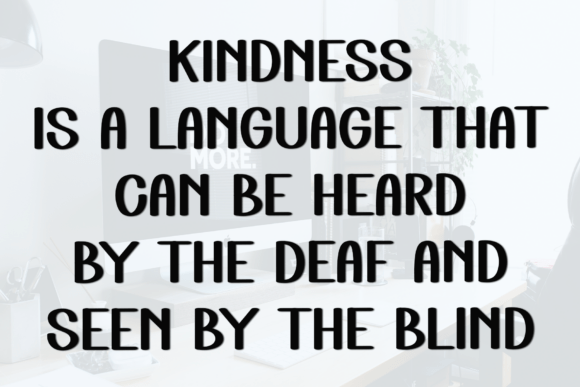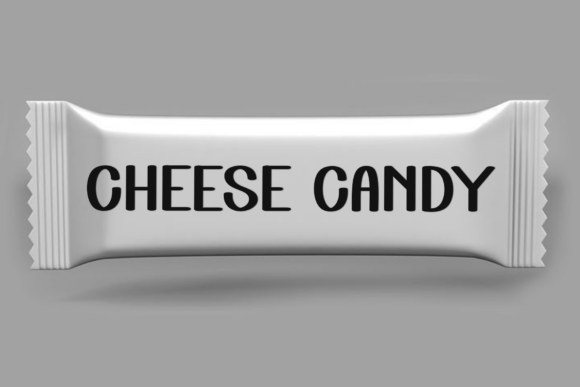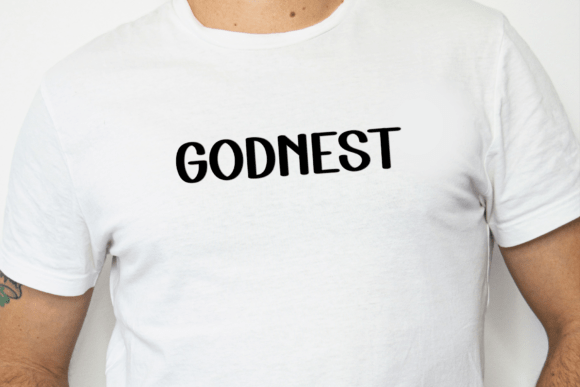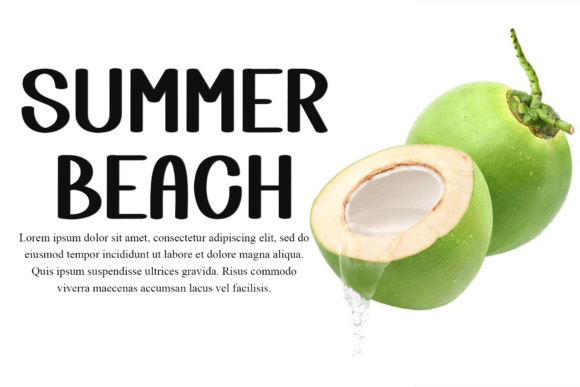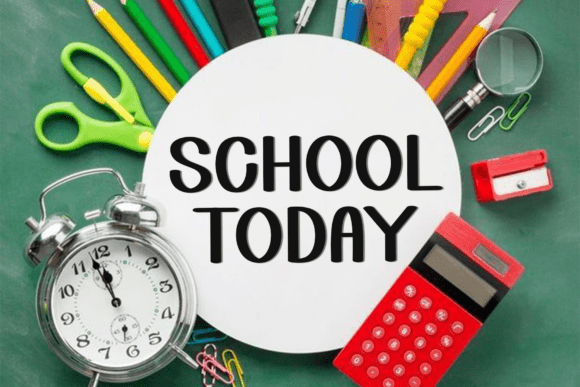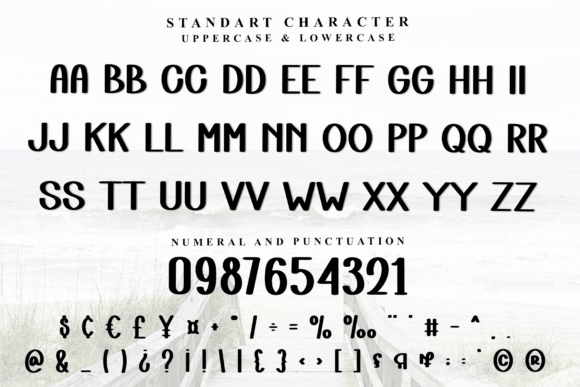
Introducing Birthday Summer Font: Elevate Your Designs with a Unique and Eye-Catching Style
Are you tired of using the same old fonts for your design projects? Look no further! Birthday Summer Font is a beautiful and eye-catching font that is sure to take your creations to the next level. Designed with a soft, unique touch, this font is perfect for designers, crafters, and artists looking to add a special something to their work.
A Font that Stands Out from the Rest
What sets Birthday Summer Font apart from other fonts is its distinctive strokes, which give it a special character that makes it both meaningful and versatile. Whether you’re working on a design project, craft, or other creative work, this font is sure to make it stand out from the crowd. With its natural and effortless style, Birthday Summer Font is ideal for a wide range of products, from digital designs to print materials.
Birthday Summer Font is perfect for designers and crafters who want to add a personal touch to their work. With its various characters, you can create unique and eye-catching designs that will appeal to many audiences across different artistic and creative fields. Whether you’re designing a logo, creating a craft project, or working on a digital design, this font is sure to inspire your creativity.
Birthday Summer Font is perfect for a wide range of projects, from:
- Digital designs, such as social media graphics and blog posts
- Print materials, such as brochures, flyers, and business cards
- Craft projects, such as scrapbooking and card making
Why Choose Birthday Summer Font?
So why choose Birthday Summer Font for your next design project? Here are just a few reasons:
- Unique and eye-catching style: This font is sure to make your designs stand out from the crowd.
- Inspires creativity: With its natural and effortless style, Birthday Summer Font is sure to inspire your creativity and take your designs to the next level.